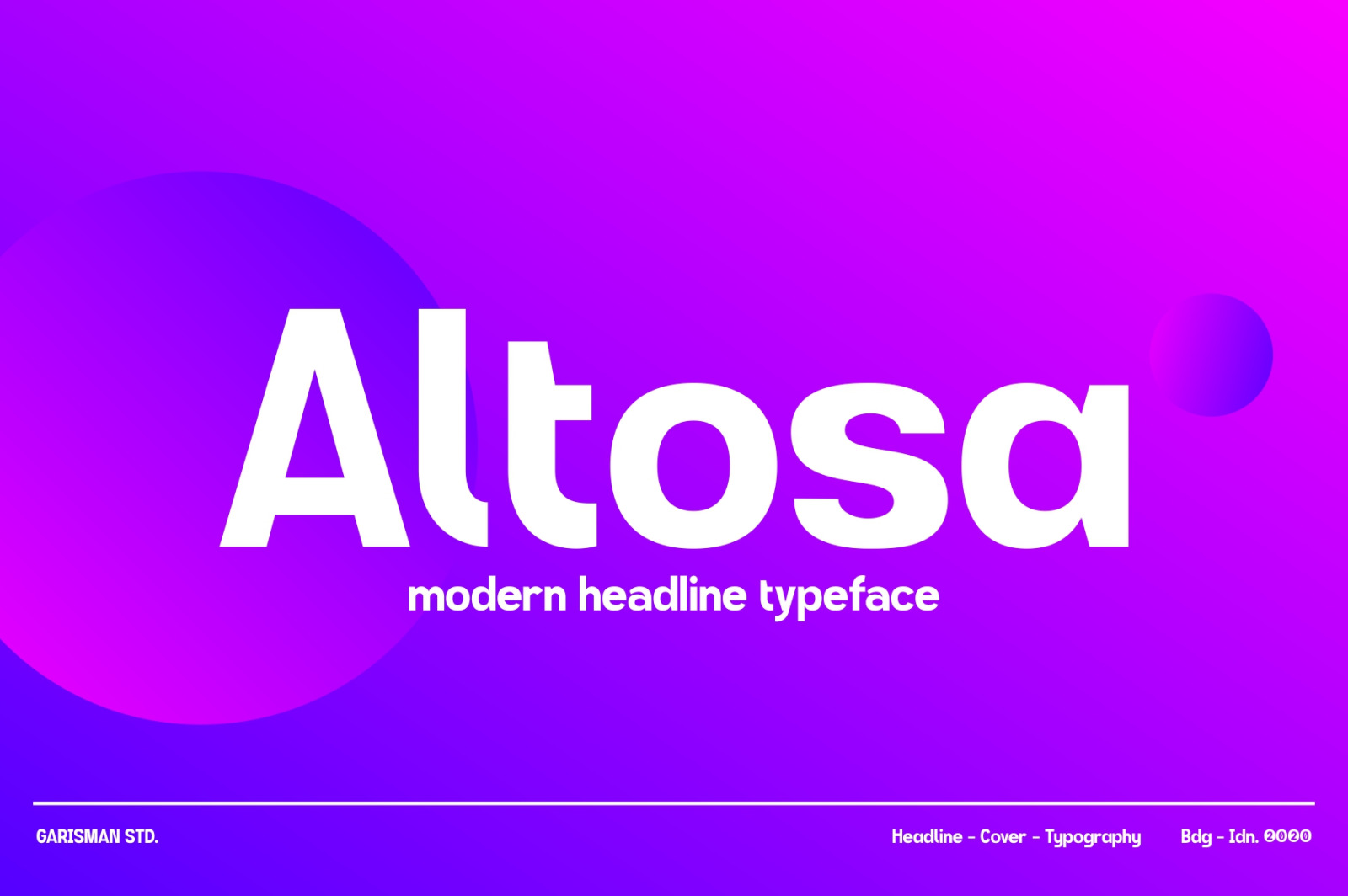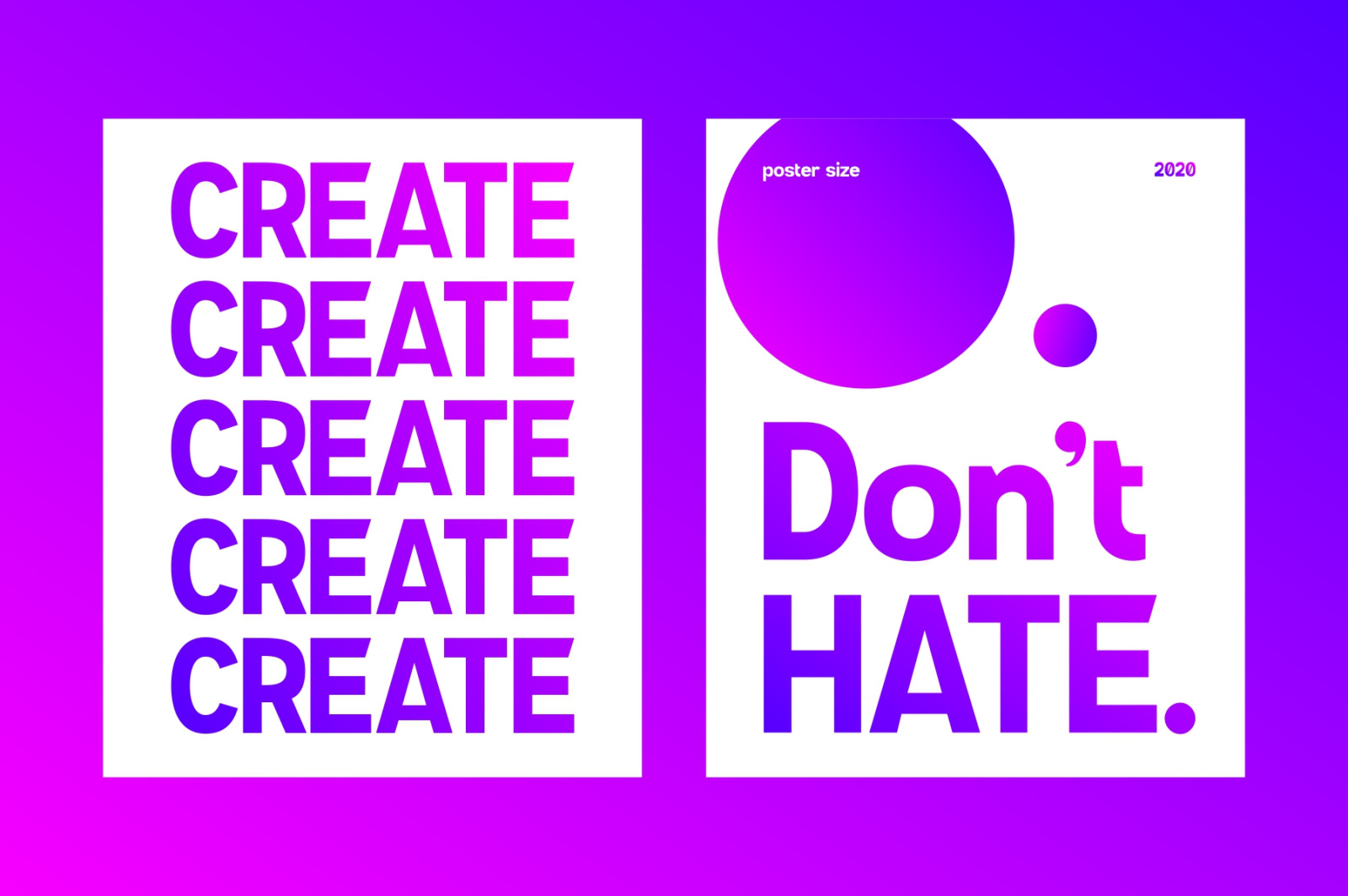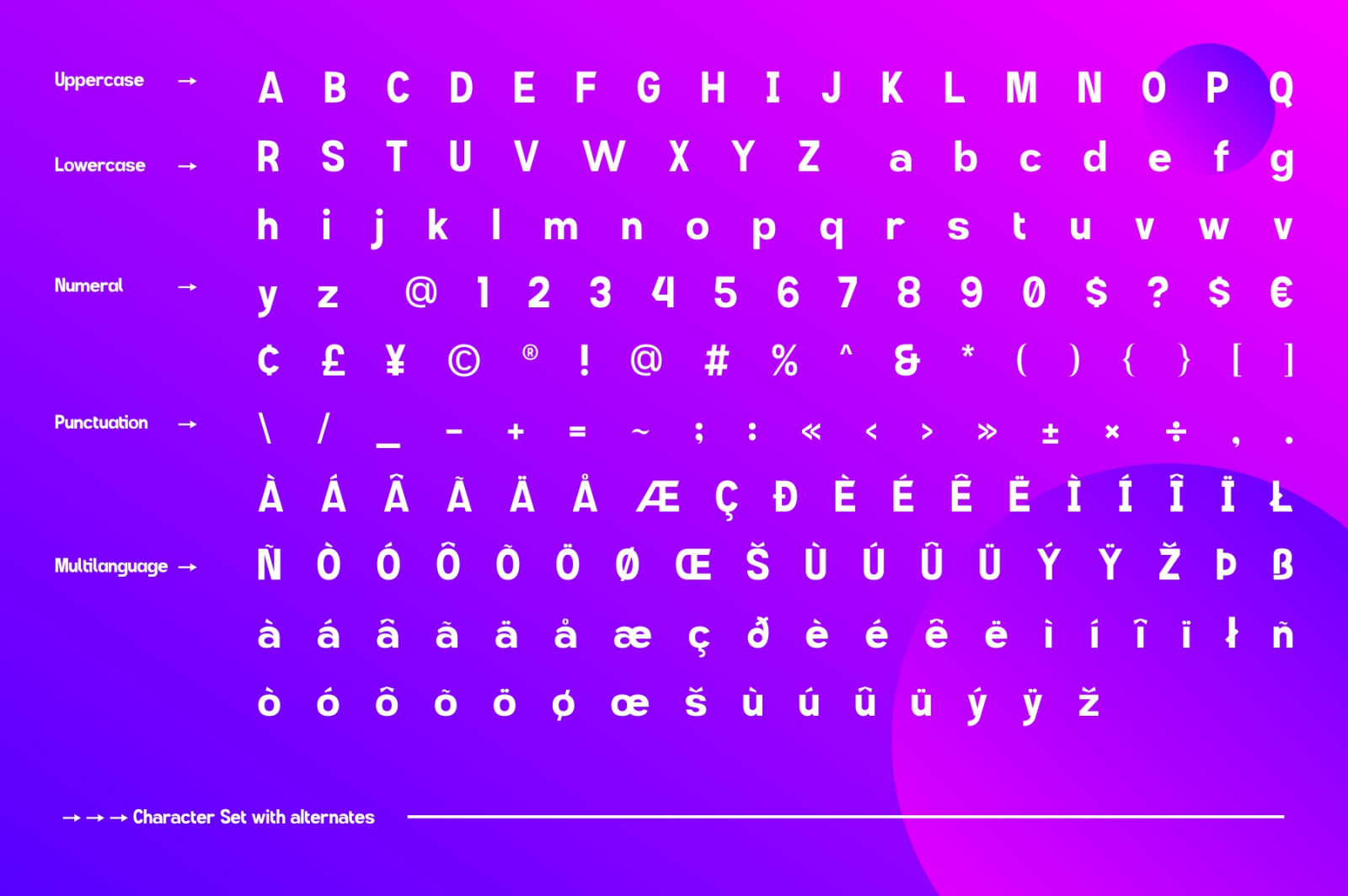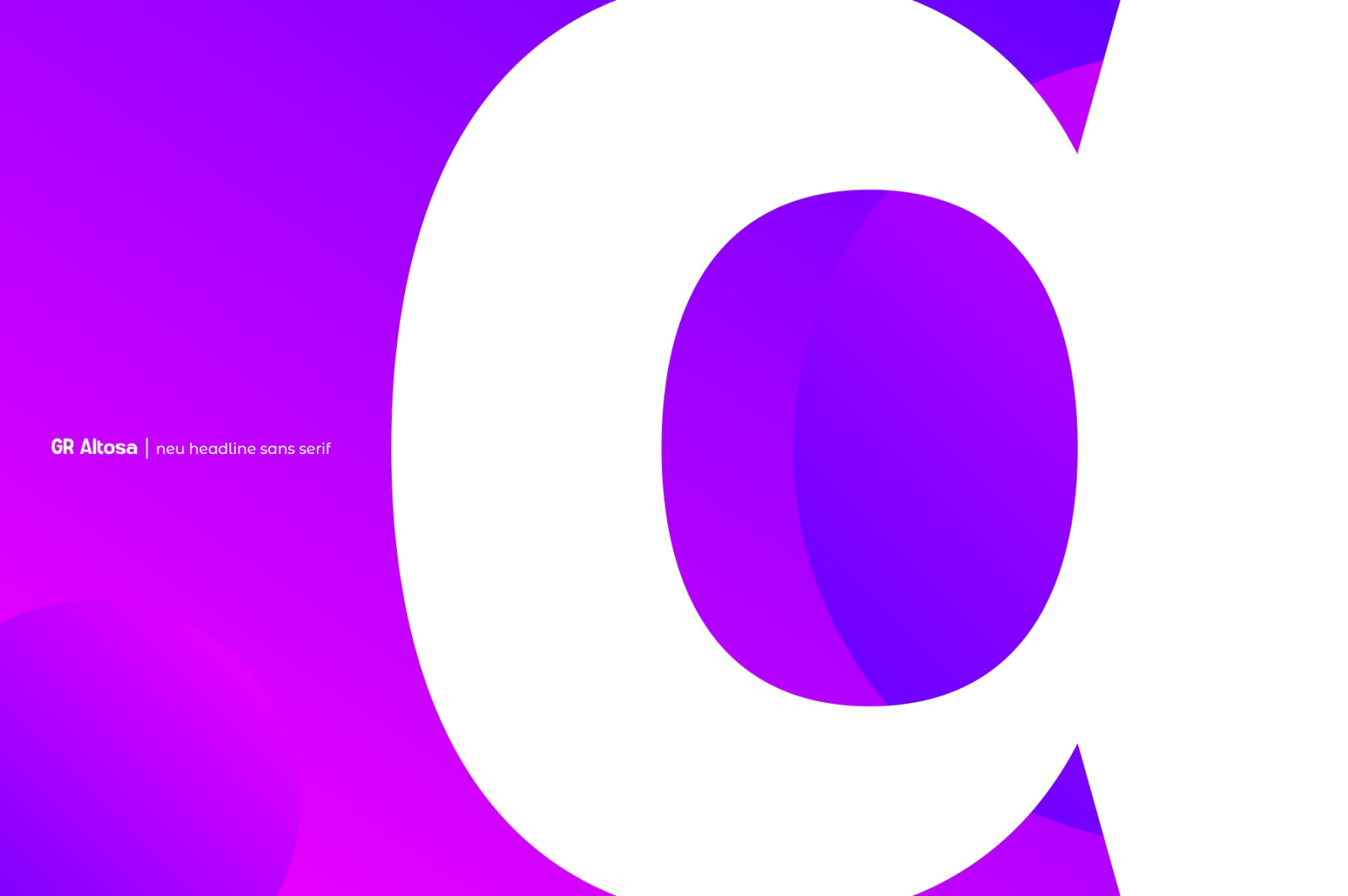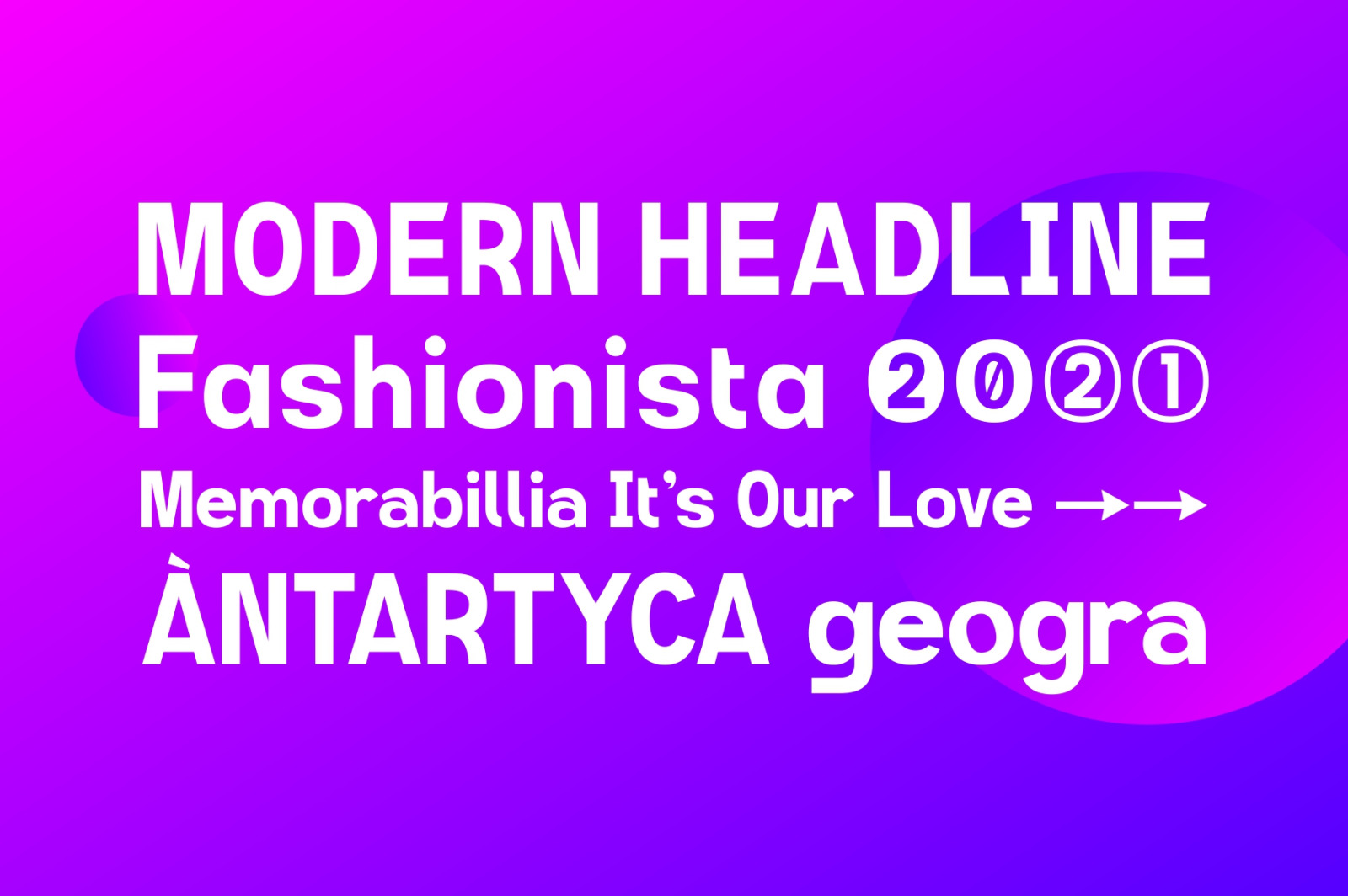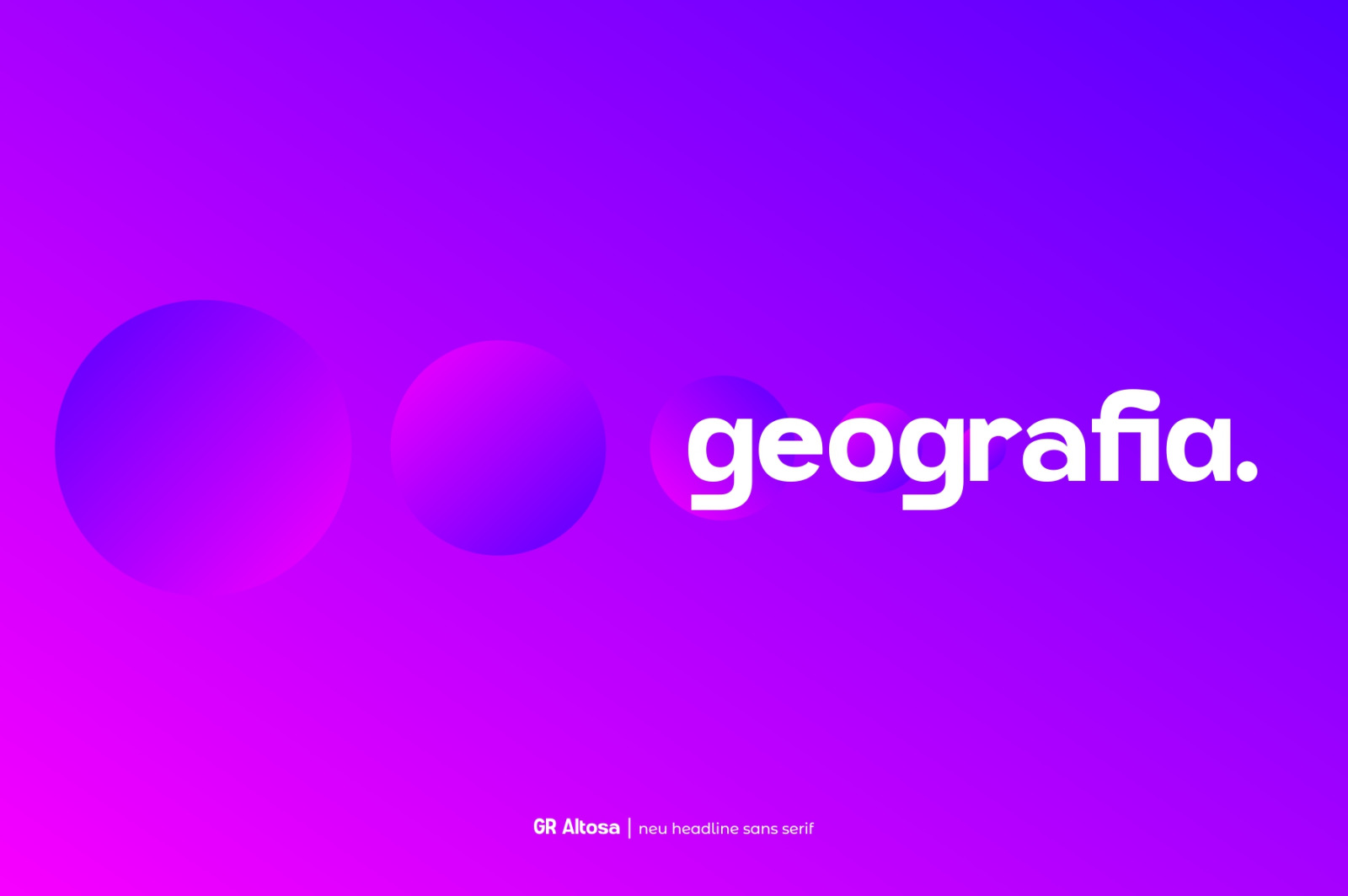
GR Altosa Typeface
GR Altosa - Headline Font
GR Altosa is a very cool typeface for headline designs with a bold and bold theme. With a strong display and clean nodes make text in the design become more character and great. Inspired by headline trends in a poster or magazine today. So that with a firm and a very modern style makes your design better!
This font is formed from the headline display font of a very careful title. Suitable for all graphic design projects, prints, logos, posters, t-shirts, packaging, website, ticket and applies to several types of graphic design. Especially for the use of a title! Very suitable! GR Read is compatible with any software without pain, especially in headlines with GR Altosa pairing
GR Altosa Features:
- Opentype Features
- PUA Encoded
- Ligatures
- 350 glyphs
- Multi-Language Support with an accent (support for 26 languages): Afrikaans Albanian Catalan Croatian Czech Danish Dutch English Estonian Finnish French German Hungarian Icelandic Italian Lithuanian Maltese Norwegian Polish Portuguese Slovak Slovenian Spanish Swedish Turkish Zulu Work on PC and MAC (tested)
- Numeral and Punctuations